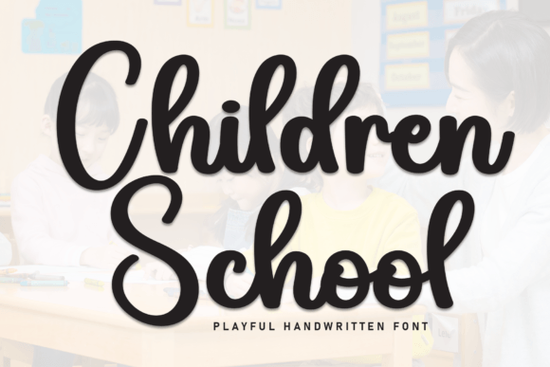
If you’ve ever tried to find a script font that feels both playful and polished for children’s projects, you know the struggle. Many are either too messy to read or too stiff for a kid-friendly look. Children School Font strikes a rare balance: it’s a magical script font carefully created with a touch of elegance, but still warm and approachable for young audiences. Whether you’re designing worksheets, party invites, or classroom decor, this font adds a handmade charm without sacrificing legibility.
What makes Children School Font different from other script fonts?
Most script fonts lean either extremely formal or overly casual. This one sits in a sweet spot. The letterforms have a flowing, cursive style but remain clear enough for early readers. The slight variation in stroke thickness gives it that elegant feel, while the rounded loops keep it friendly. It works great for child-friendly script fonts because it doesn’t try too hard to be fancy it just looks natural. Designers often use it for cover pages, book titles, and educational materials where you need both personality and readability.
How can print-on-demand sellers use this font?
If you sell on platforms like Redbubble, Etsy, or Printful, a unique script font can make your products stand out. Children School Font is perfect for:
- Kids’ t-shirt quotes or personalized mugs
- Wall art with inspirational sayings for a nursery or classroom
- Custom stationery sets – think thank-you cards or birthday invites
- School memory books and scrapbook labels
Because the font has a refined touch, it also pairs well with pink pastel script fonts for a coordinated pastel-themed collection. You can mix it with simple sans-serif fonts for contrast, letting the script do the heavy lifting for emotional appeal.
Is it easy to read for young children?
Yes, but with a small note. The script style means some letters connect, which helps early readers recognize word shapes. However, for very young learners (preschool), you might want to use it for headings rather than body text. For kindergarten and early elementary materials, it works beautifully in short phrases, name tags, or flashcard titles. If you need a more structured layout, consider adjusting the alignment of your script fonts to keep lines neat. The font itself has natural spacing, but a little kerning tweak can improve readability on longer sentences.
What DIY projects benefit from a magical script like this?
Creative hobbyists love this font because it instantly elevates simple crafts. Here are some real-world uses:
- Handmade cards – birthday, baby shower, or teacher appreciation
- Bullet journal headers – adds an elegant but fun touch
- Cricut or Silhouette projects – vinyl decals for kids’ rooms or mothers’ day gifts
- Digital planners – especially for sections like “week at a glance” or “goals”
It also pairs nicely with handmade script fonts if you want a collection with a similar hand-drawn feel. The key is to use it sparingly so it remains the focal point, not an overwhelming swirl.
Can small businesses use it for branding?
Absolutely. If you run a small bakery, a daycare, or a children’s clothing brand, this font can be part of your logo or label design. Its elegance adds a premium look, while the playful curves keep it approachable. For example, a kids’ boutique could use it for swing tags, website banners, and social media posts. Because it’s a script font, it reads well in short bursts, so headlines and product names work great. You can even combine it with Santa Catalina script fonts for a more ornate alternative on formal pieces like gift certificates.
Tips for pairing Children School Font with other fonts
To get the most out of this font, follow these simple pairing guidelines:
- Choose a simple sans-serif like Montserrat or Open Sans for body text. The contrast keeps the script looking clean.
- Use a serif font for vintage feel – something like Playfair Display gives a classic touch.
- Avoid mixing with other script fonts unless you’re creating a decorative headline stack. Too many scripts clash.
- Adjust letter spacing if you use it in all caps – the default cursive connections work best in lowercase.
Practical checklist before you download
Before you grab Children School Font for your next project, run through this quick list:
- ☐ Check the license – it’s a Creative Fabrica product, so read if it covers commercial use for your POD items.
- ☐ Test it in your design software – some free versions lock certain characters. This one is often full-featured.
- ☐ Pair it with a background that isn’t too busy – the script needs breathing room.
If you’re tired of scrolling through hundreds of script fonts without finding one that fits both kids’ projects and elegant aesthetics, give this one a try. Start with a simple quote for a nursery print and see how naturally it flows. You’ll quickly see why it’s a go-to for designers and crafters alike.